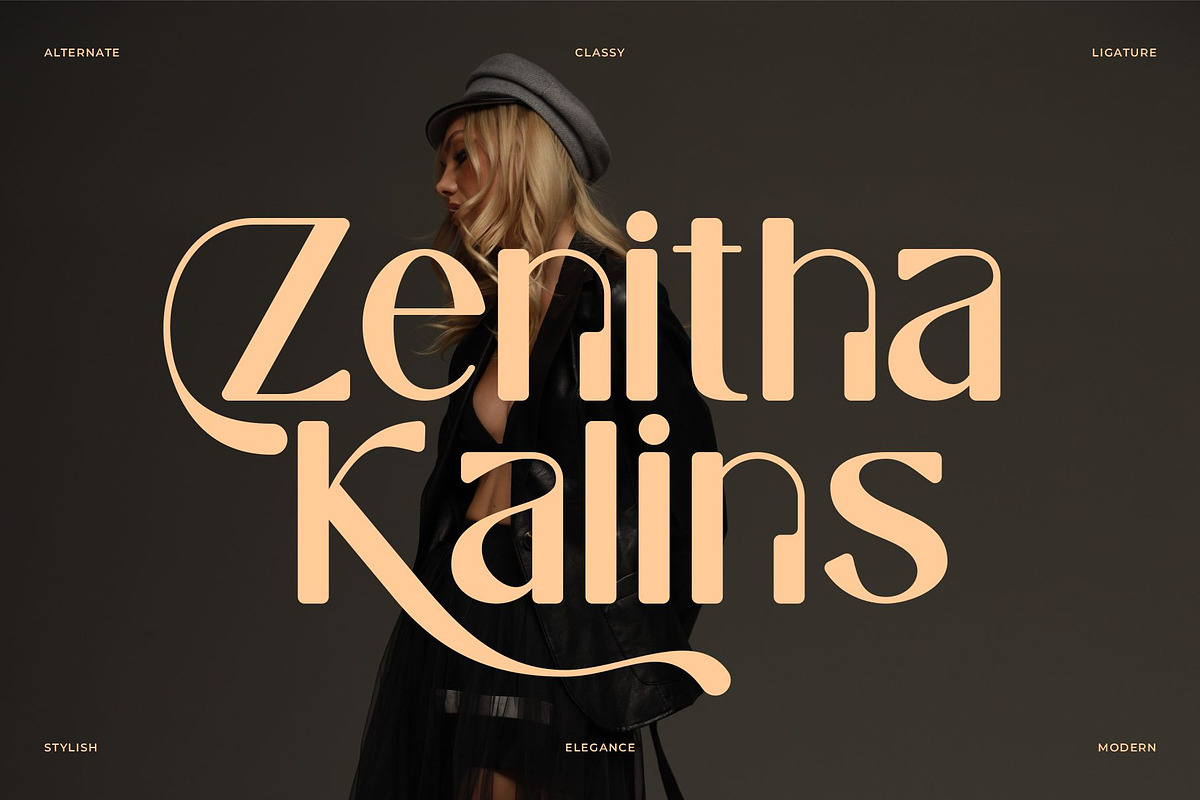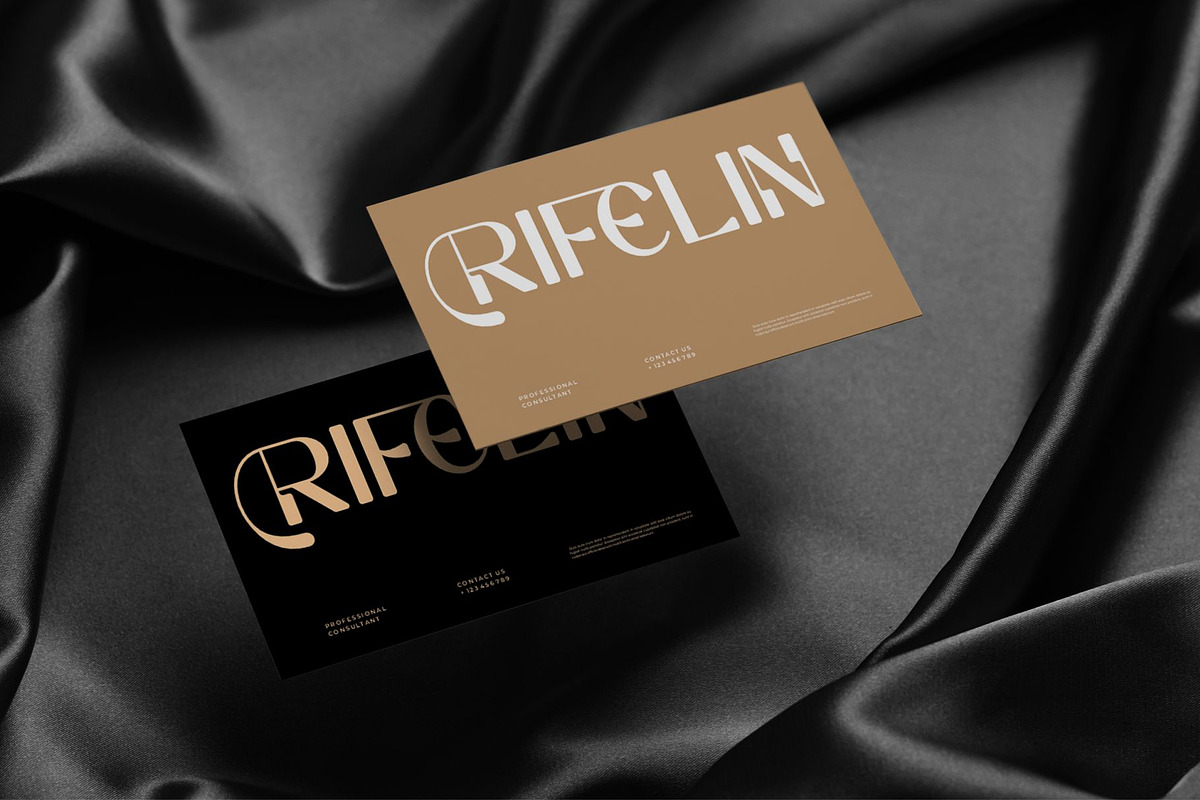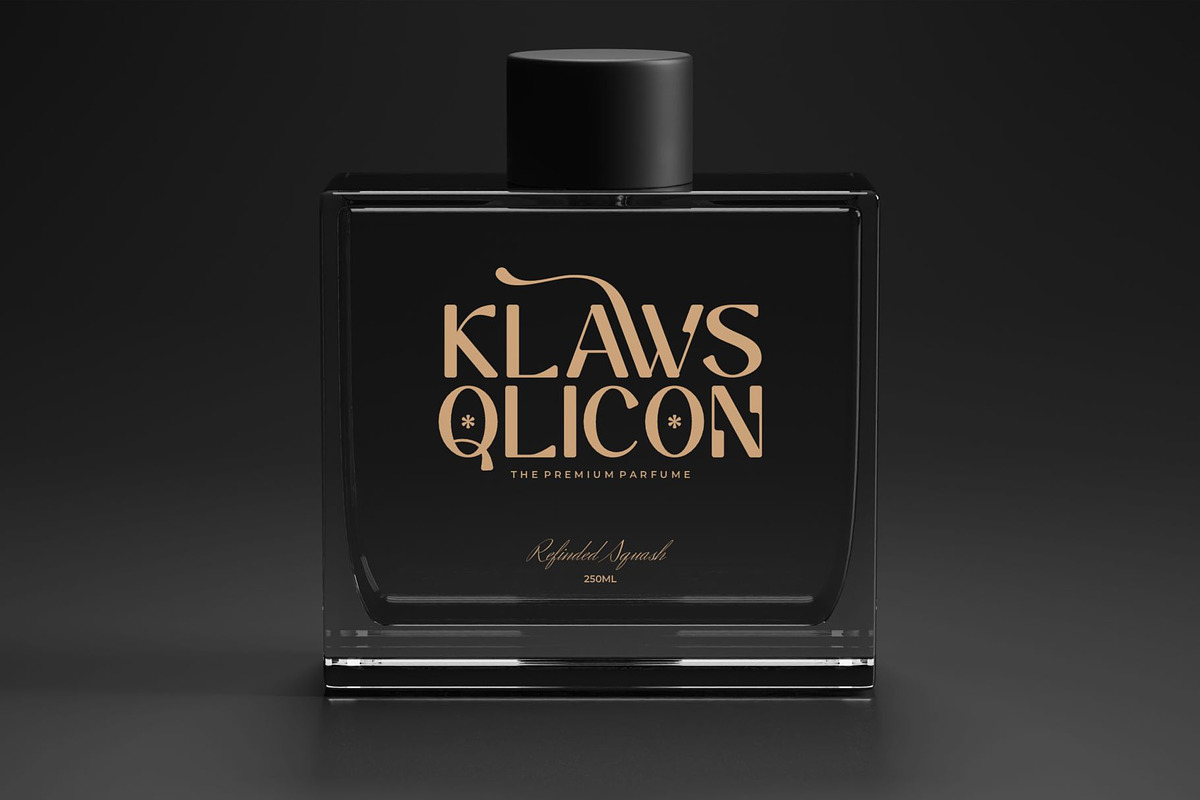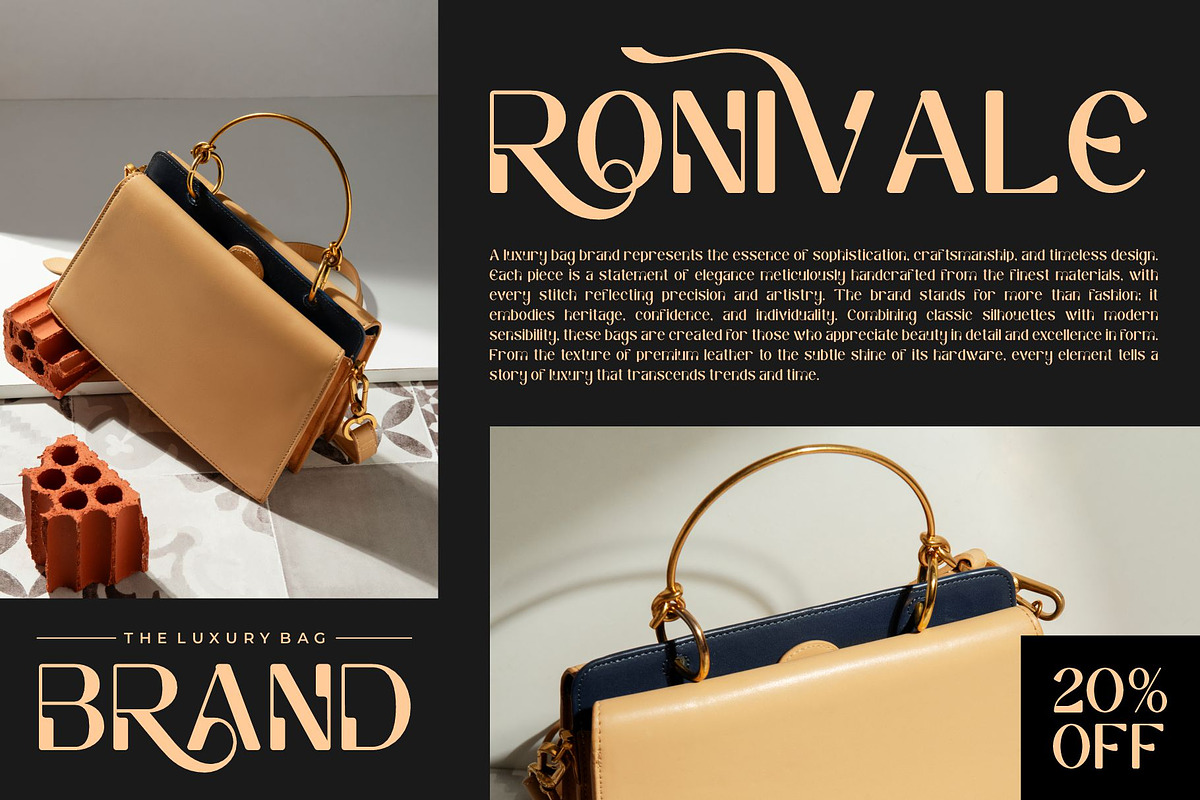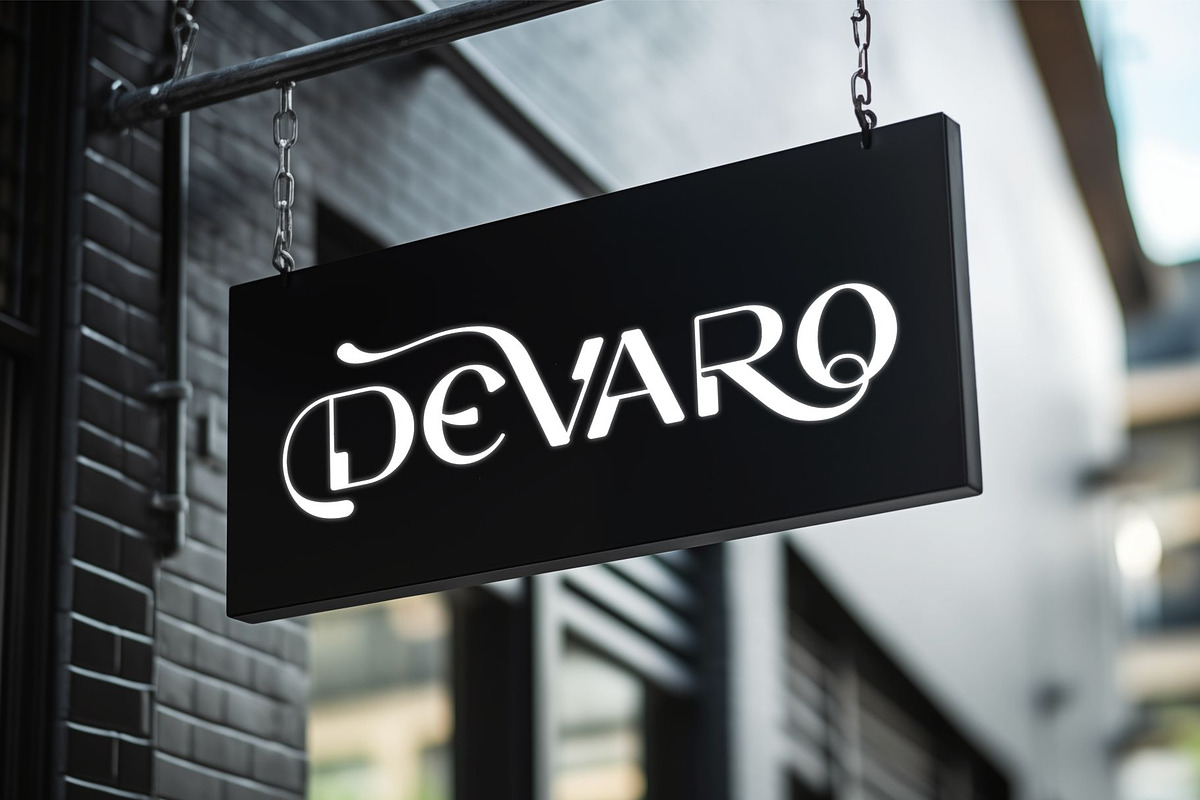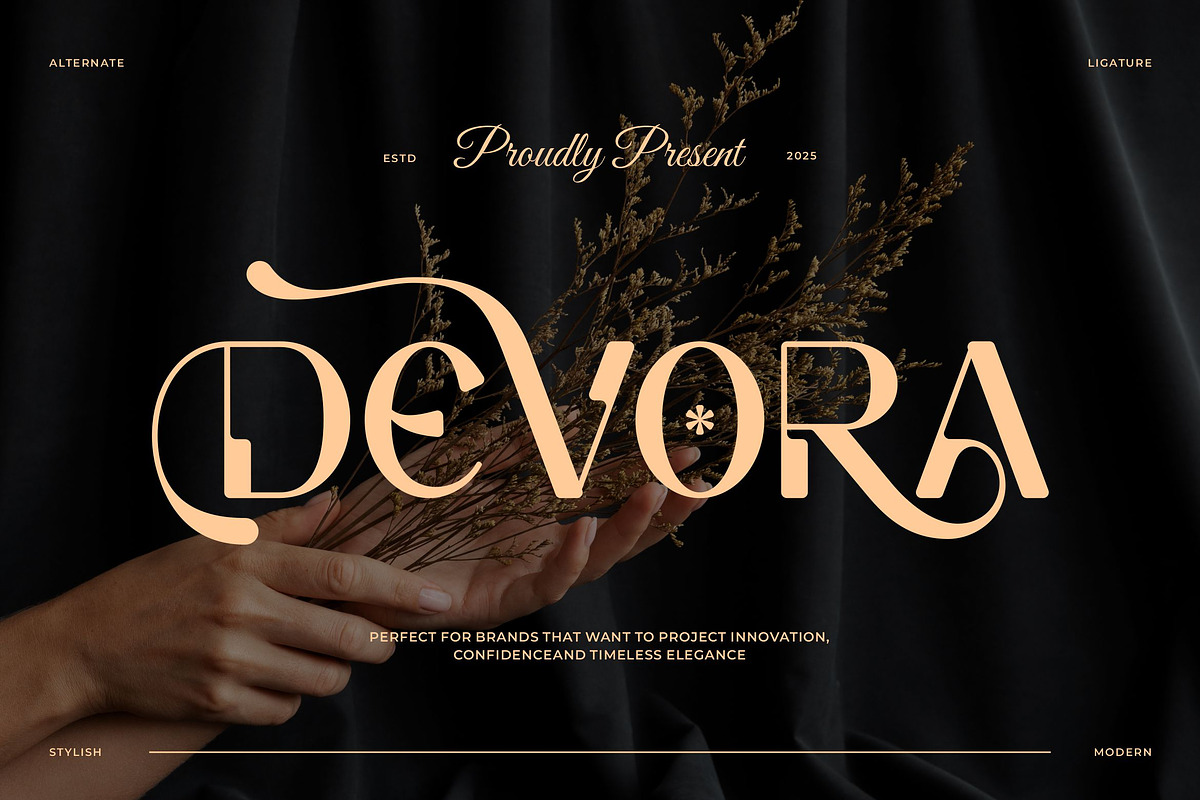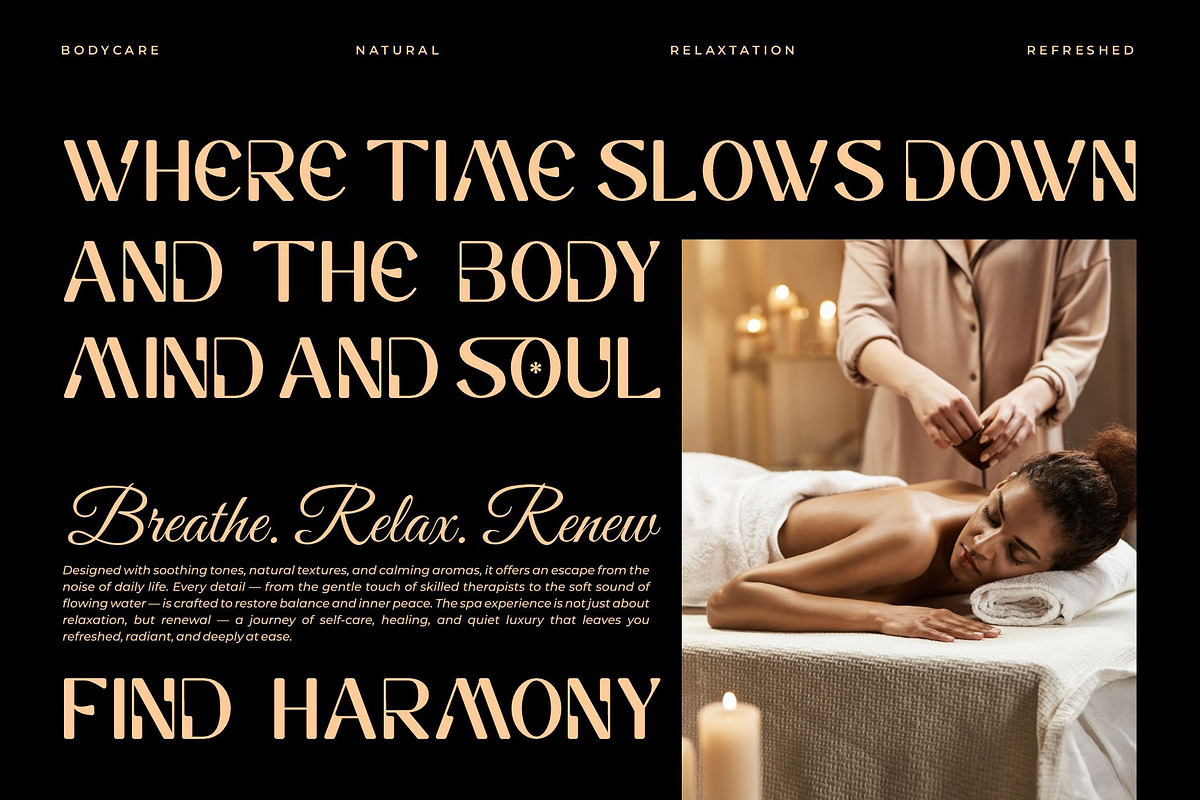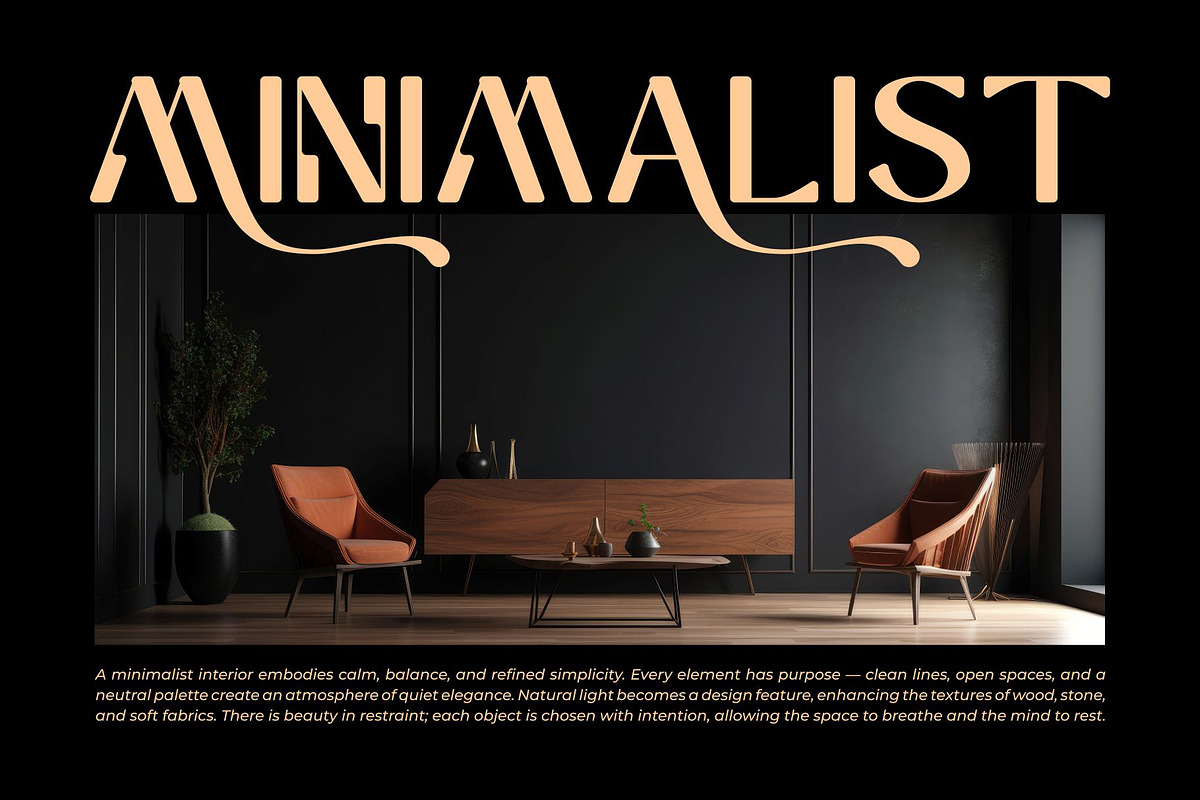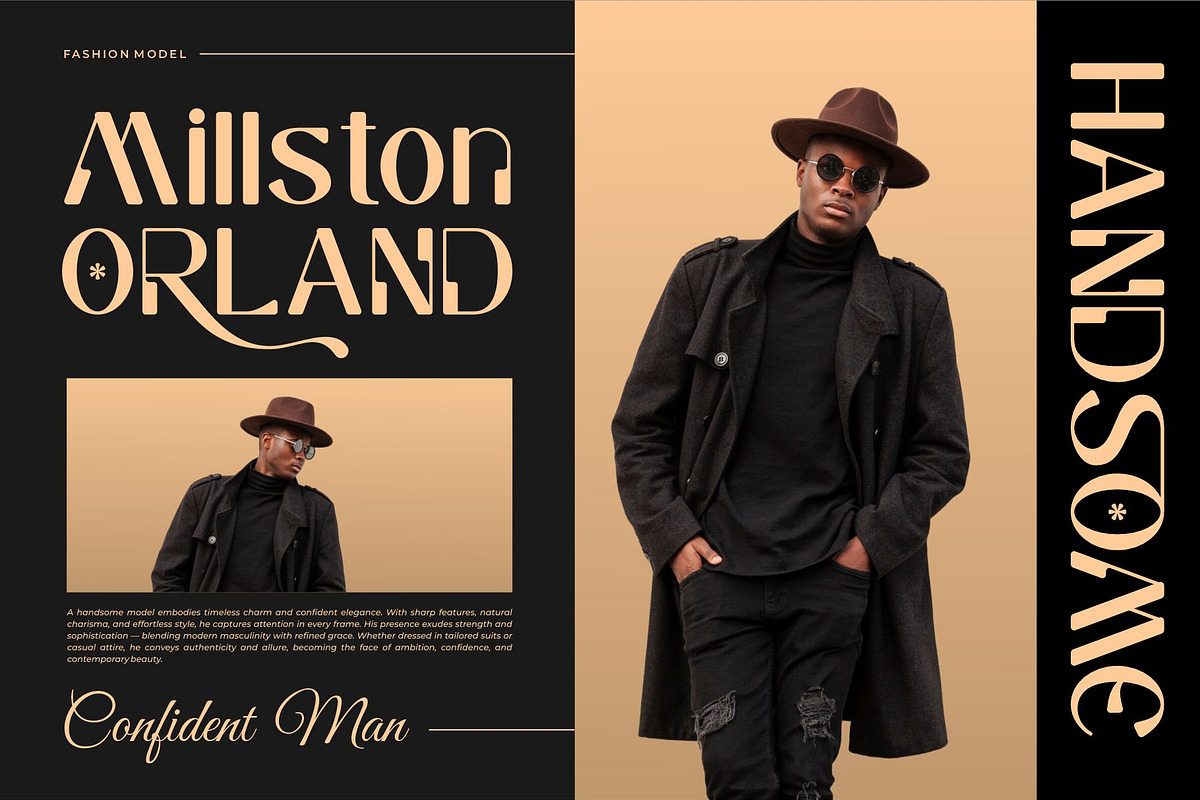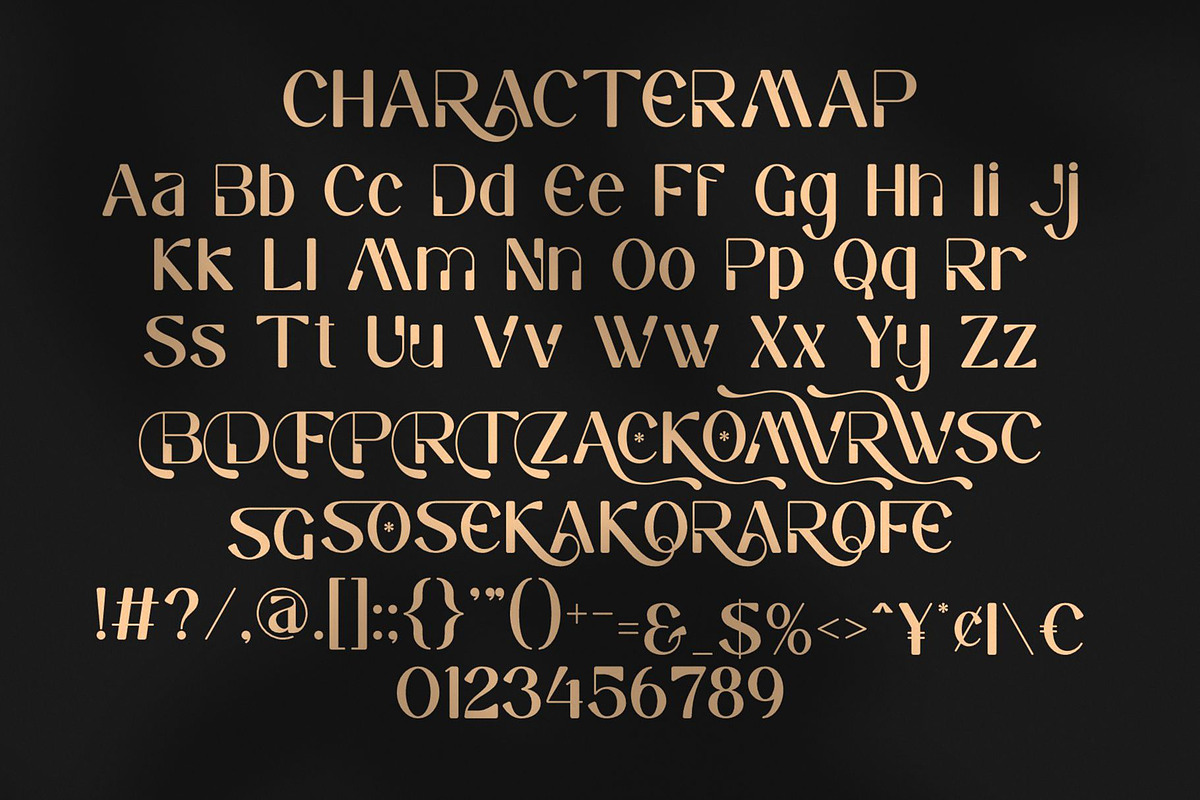
Devora || Elegant Classy Sans Serif
Devora Sans Serif is a elegant and classy font type for all branding and logo designs. This elegant and classy Serif font has a beautiful character. This font is suitable for invitation card designs, cool logos, movie titles, movie names, business cards, book titles, brand names, and various other designs. Devora Sans Serif is a smooth serif font that exudes sophistication and the moment. Its stylish ligatures make this font a perfect partner for any project.